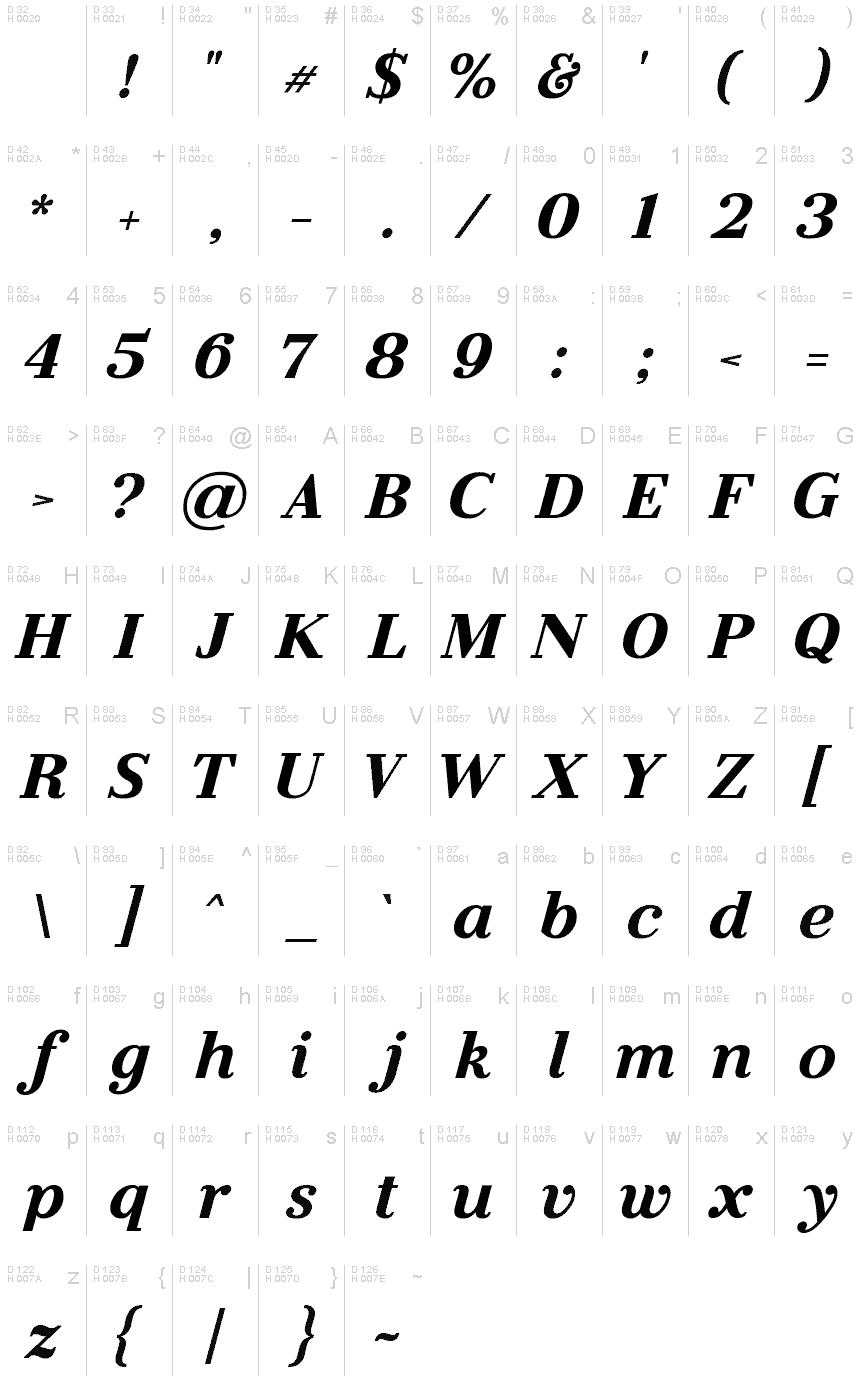
Litoland Italic
Litoland Italic, a captivating serif font created by Typesgal, exudes a timeless elegance with its refined curves and graceful strokes. This distinctive typeface, part of the Litoland family, commands attention with its sophisticated aesthetic, evoking a sense of refined sophistication. The italic inclination and subtle variations in stroke thickness lend an air of artistry, making Litoland Italic a compelling choice for any design that requires a touch of refined elegance.
Versatile and adaptable, Litoland Italic shines in a variety of applications, from editorial layouts and book covers to high-end branding and signage. Its distinctive personality effortlessly complements both modern and traditional design styles, making it a valuable asset for designers seeking to create impactful and visually captivating projects.